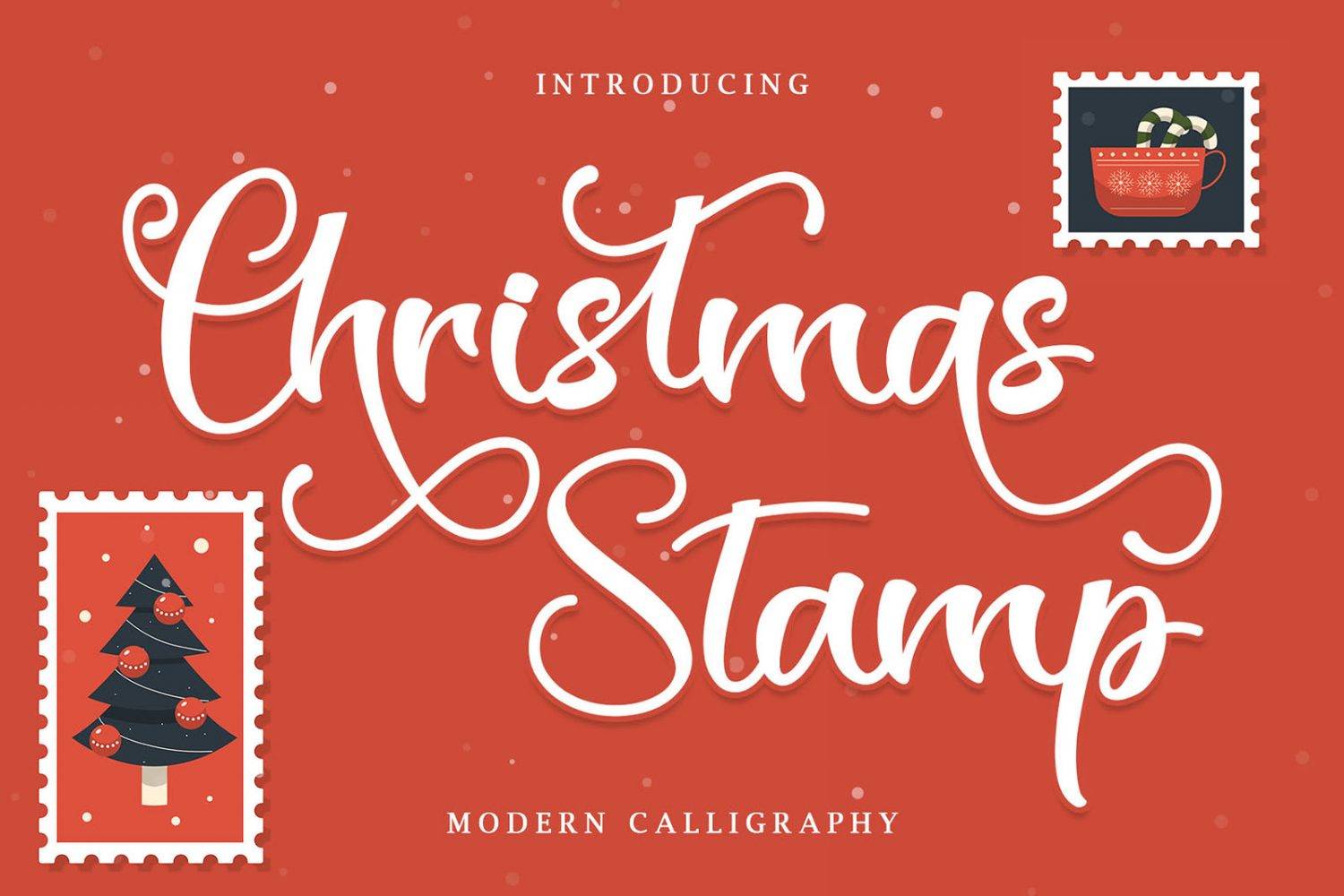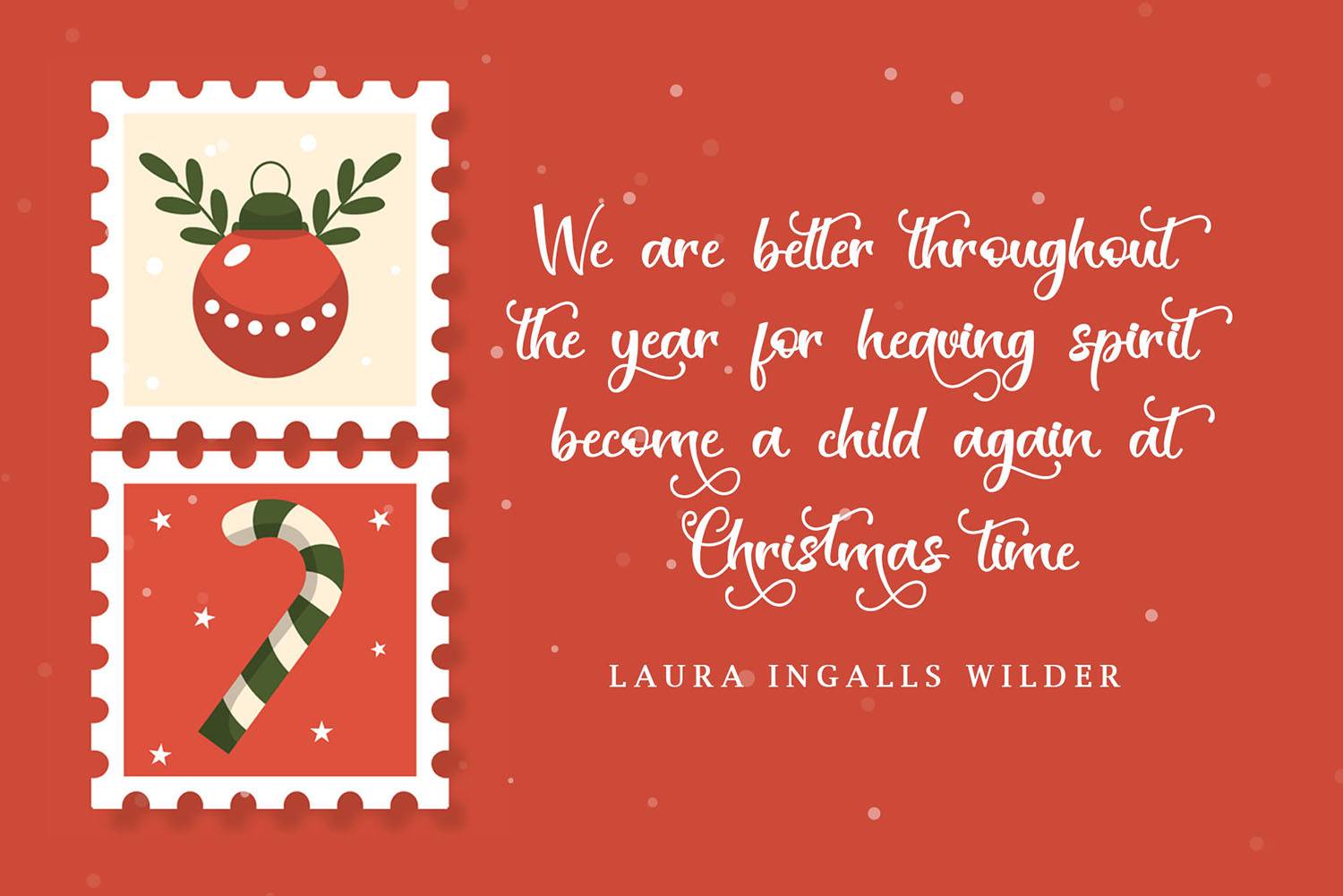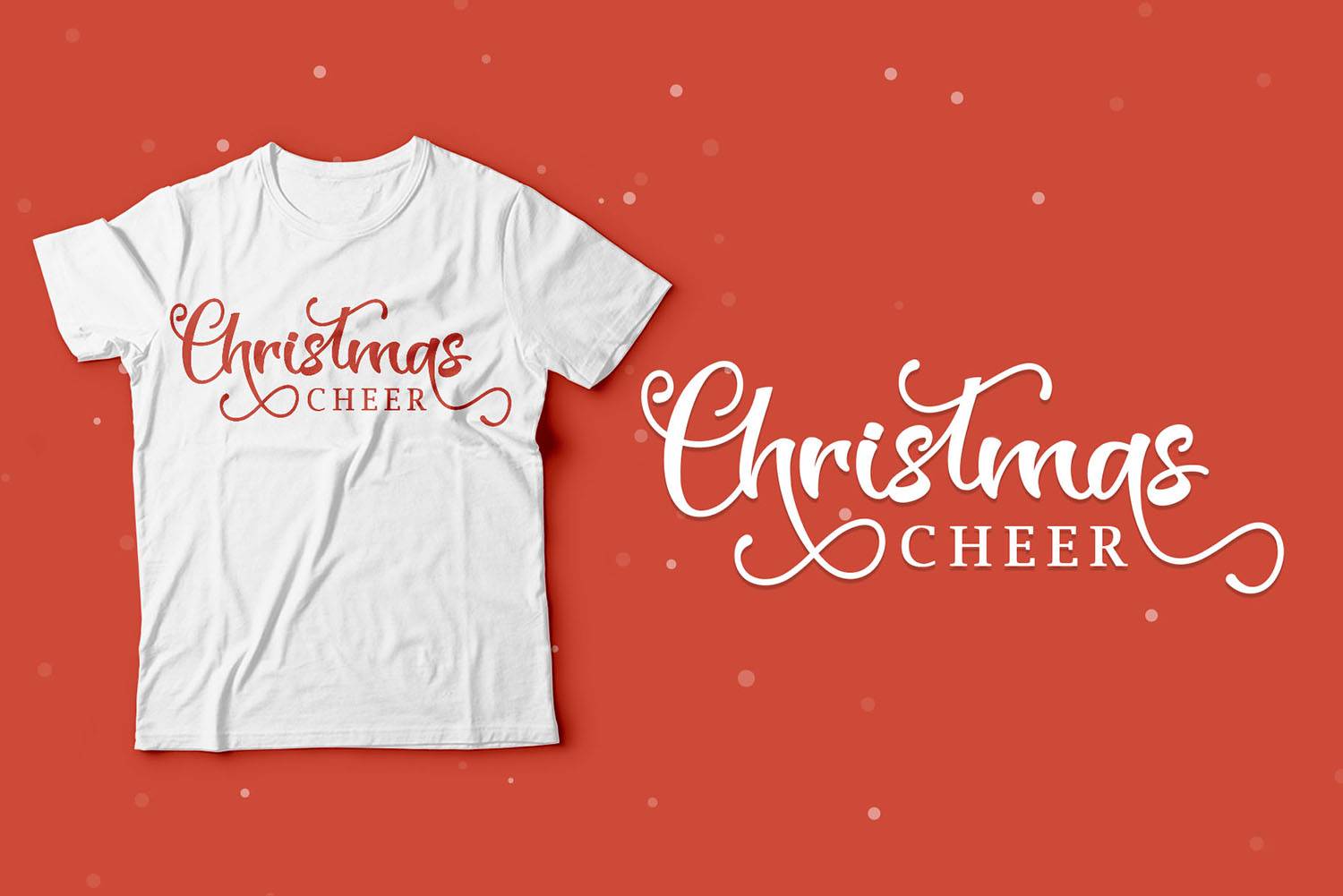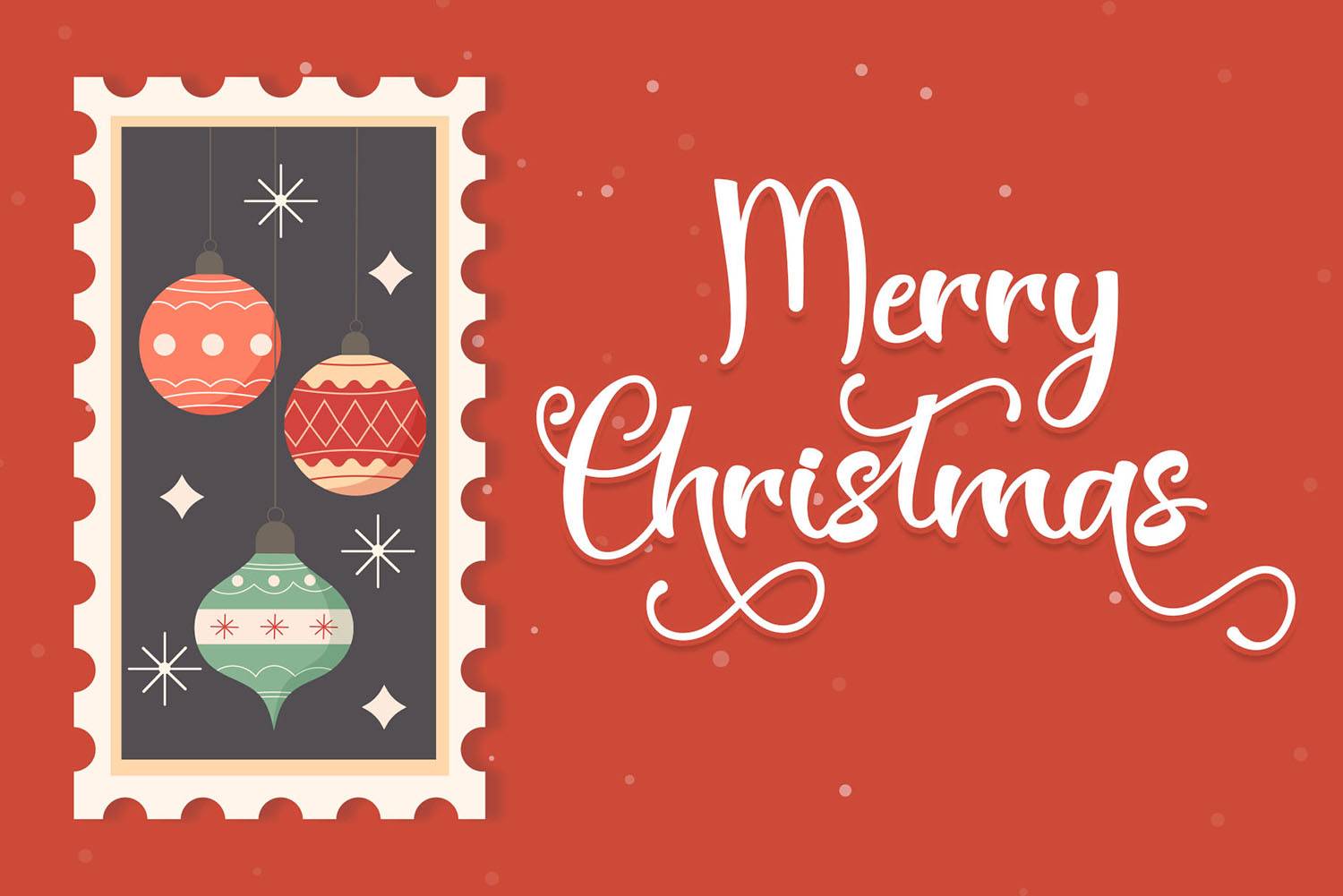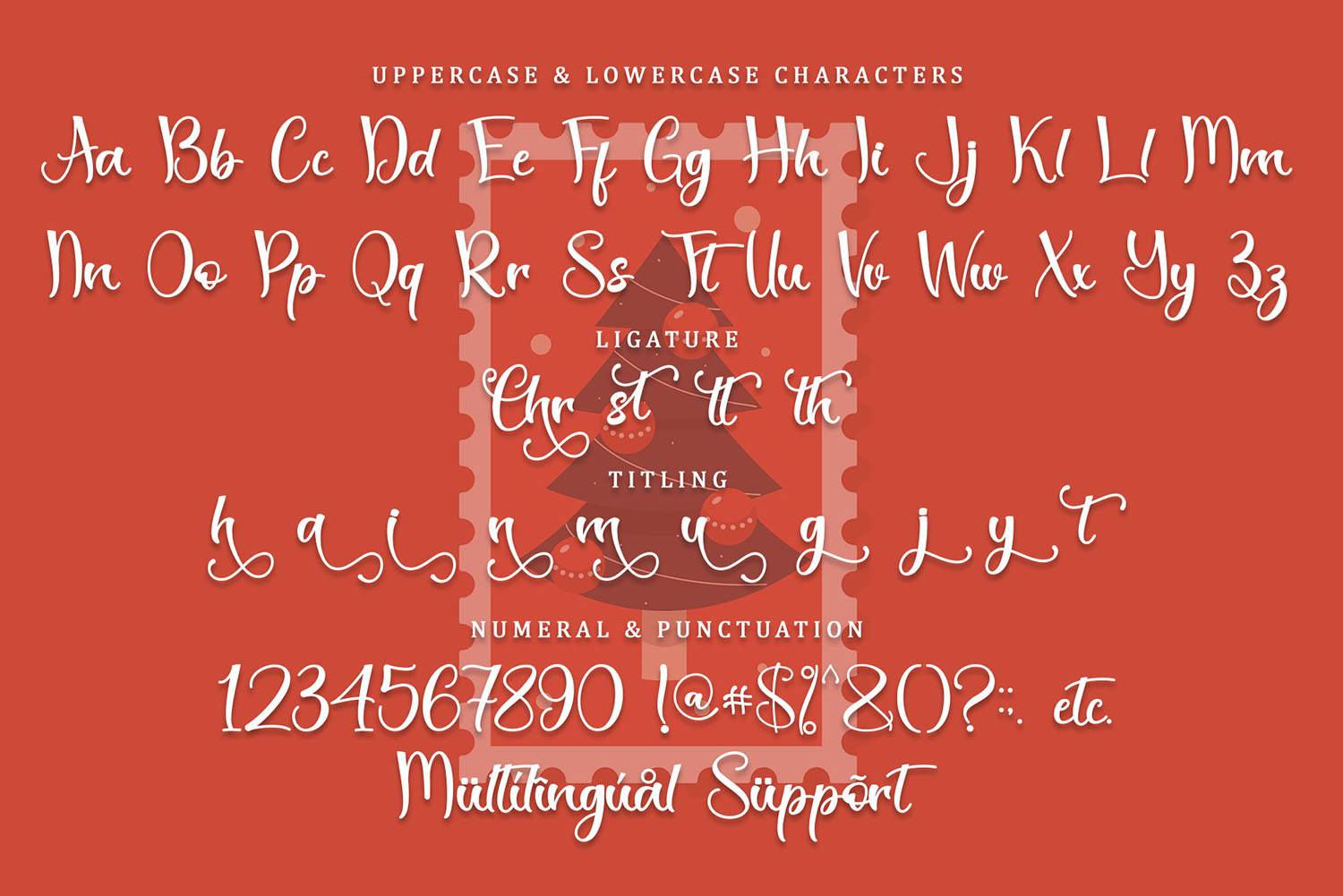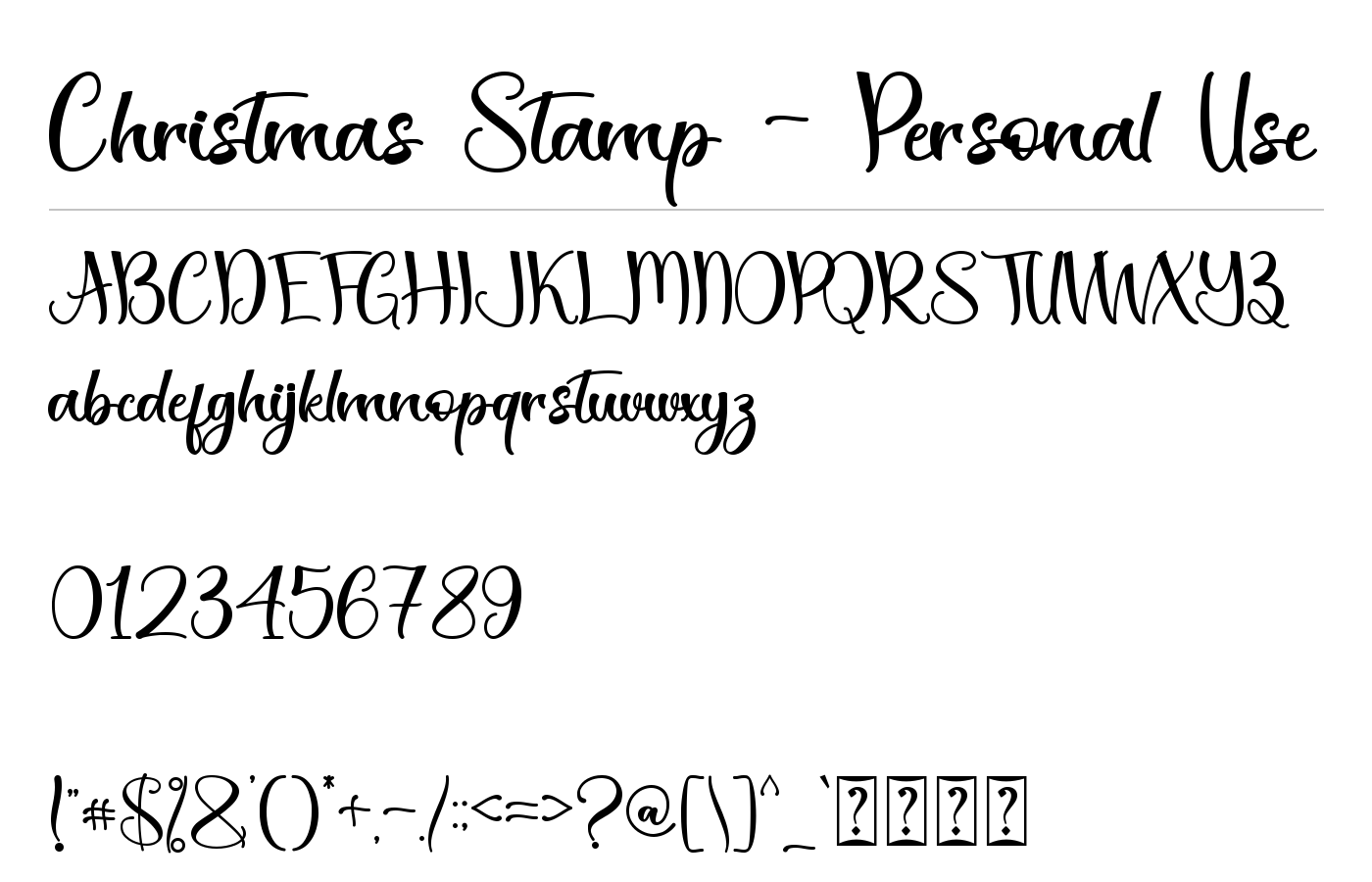
Christmas Stamp is a playful and charming script font with a casual handwritten style, featuring lively and slightly irregular letterforms that add a warm, festive feel. Its medium weight and moderate contrast, combined with unique curvy details and soft strokes, make it perfect for holiday-themed designs, greeting cards, and whimsical branding that seek a personal, cheerful touch. This font works especially well in headlines and decorative text where its friendly personality can truly shine.
Christmas Stamp Font
About Christmas Stamp Font